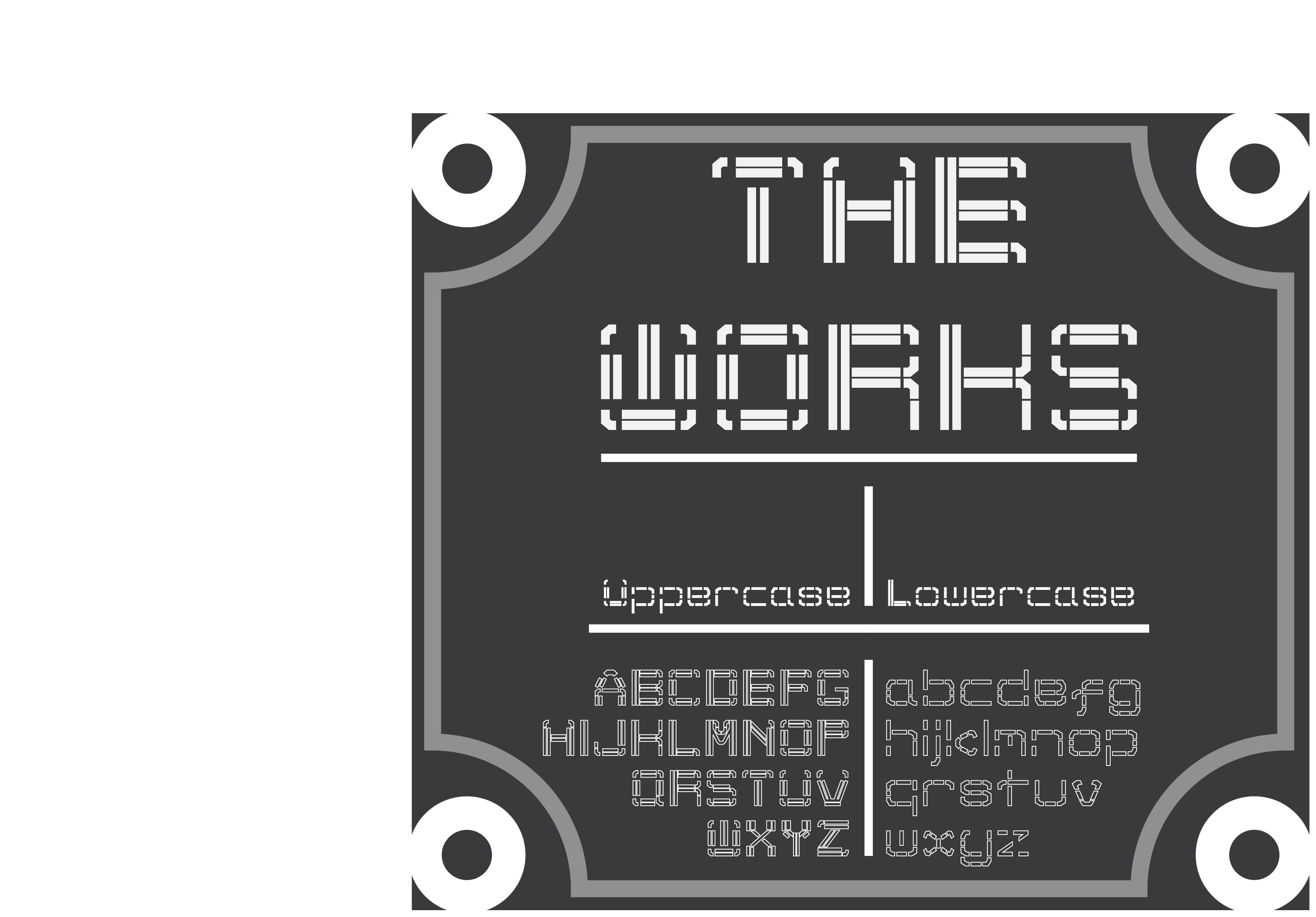
"The Works" is a typeface engineered to embody the ornate and industrial heritage of Peckham Rye Station and its architectural transformation. To capture this, I first looked into the construction of the building, drawing from the renaissance revival-style, taking inspiration from the forms of the walls, the metal engraved railings on the traditional station staircase, and the symmetry of the structure's design.
Additionally, I looked to the business operating adjacent to the station, "TARA FABRICATIONS" who specialise in steel fabrication. Using this mix of ideas to create THE WORKS brought about mechanical serifs, which captures the industrial and traditional aspects of Peckham Rye Station.